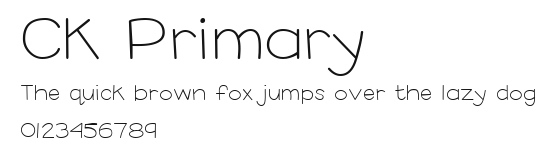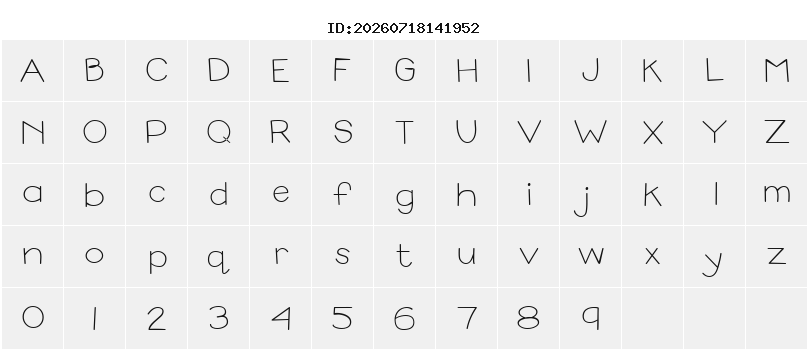
• Font Name: CK Primary
About CK Primary.ttf
CK Primary.ttf is a modern, elegant sans-serif font designed for ultimate readability and visual harmony. Perfect for branding, headlines, web design, and print materials.